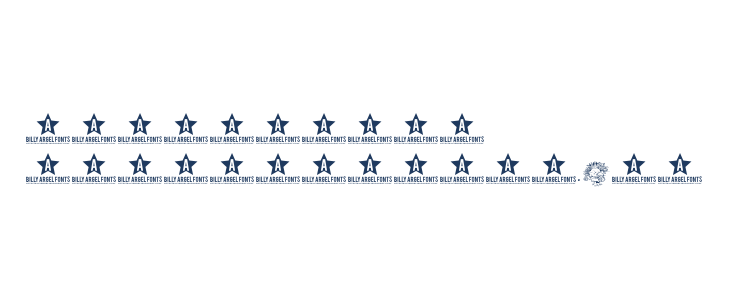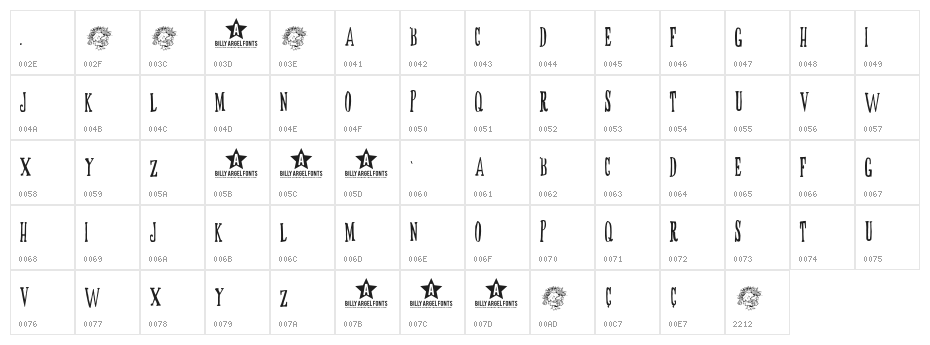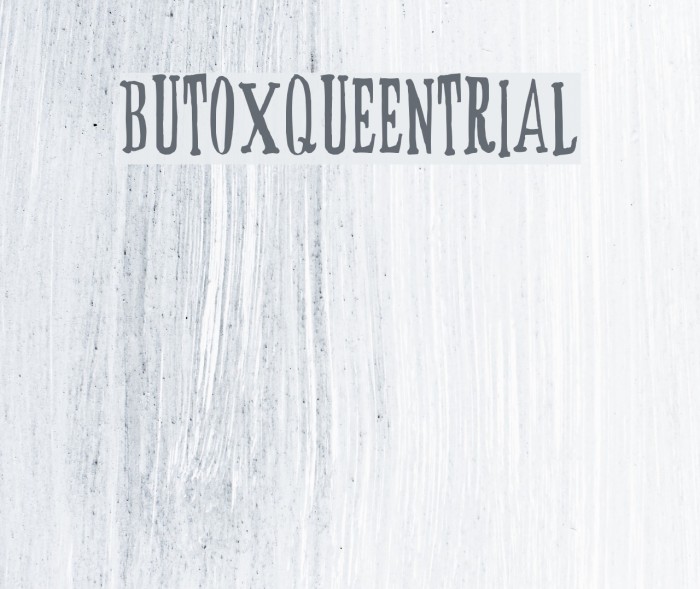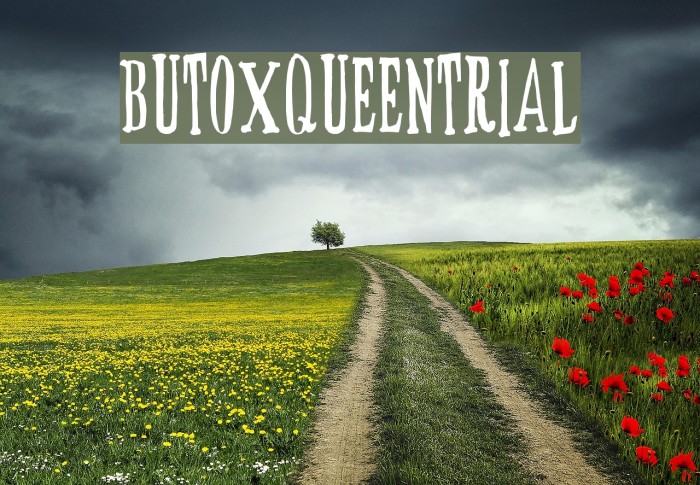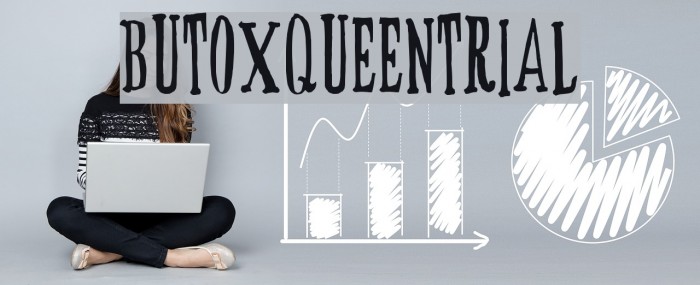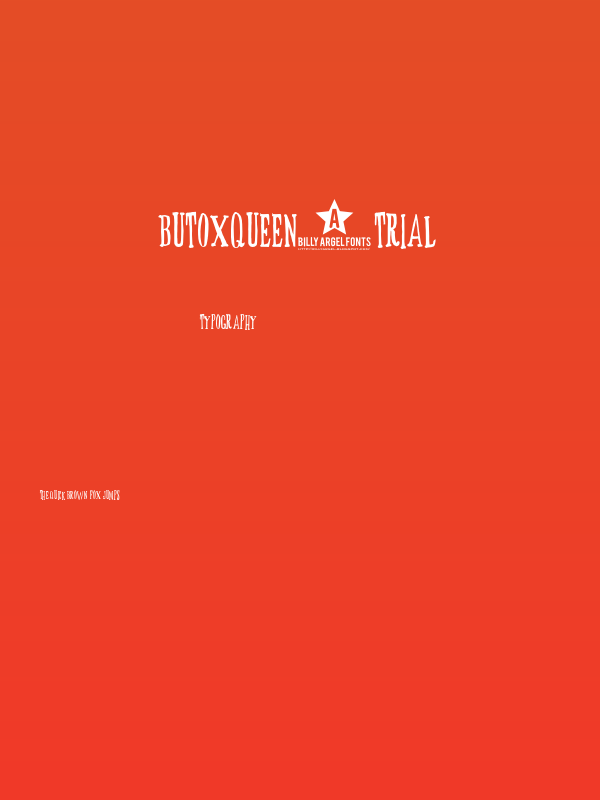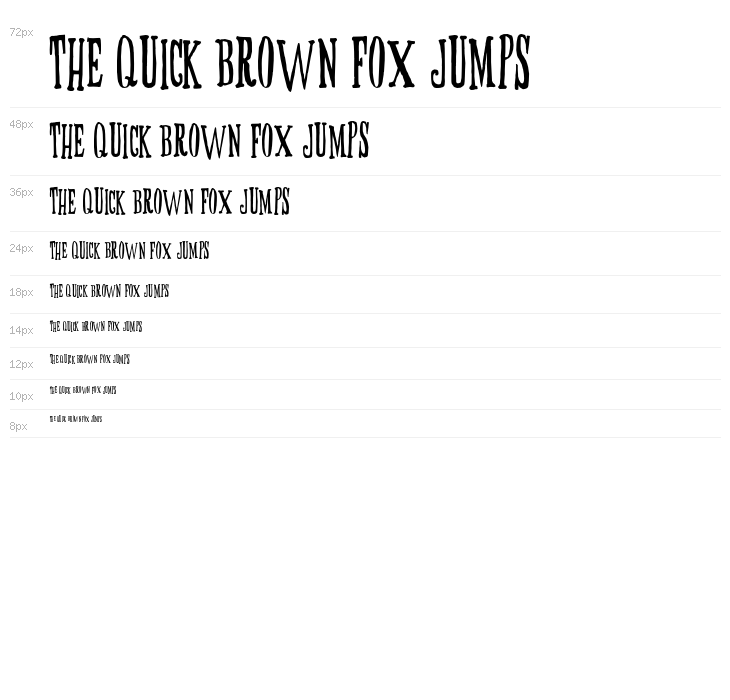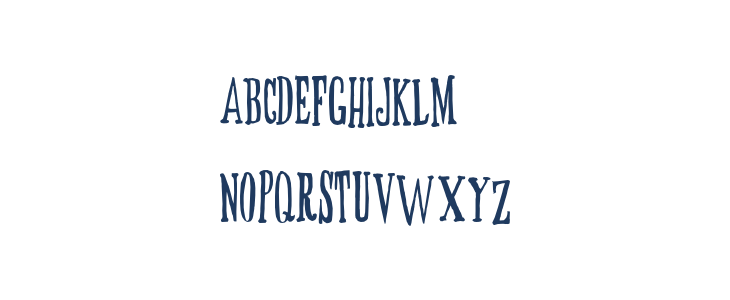
BUTOXQUEEN-trial Font
BUTOXQUEEN-trial Description
This font features a bold and decorative style with a vintage flair. The uppercase letters exhibit a unique, slightly distressed appearance, giving them a handcrafted look. The strokes are thick and uneven, adding character and a sense of movement to the text. The overall design is reminiscent of old western or circus posters, making it ideal for projects that require a touch of nostalgia or whimsy. The font's distinctive style is both eye-catching and memorable, perfect for creating standout headlines or logos.
| Proposed Projects | Ideal for vintage-themed posters, logos, book covers, and event invitations. |